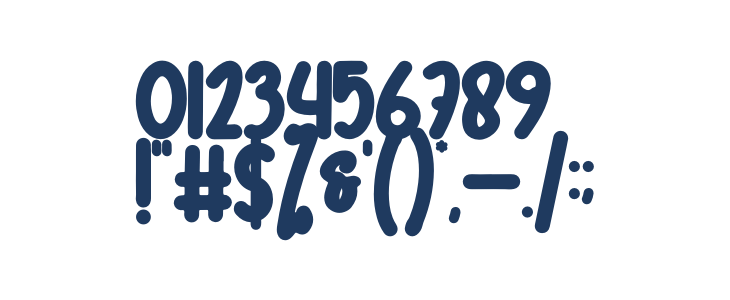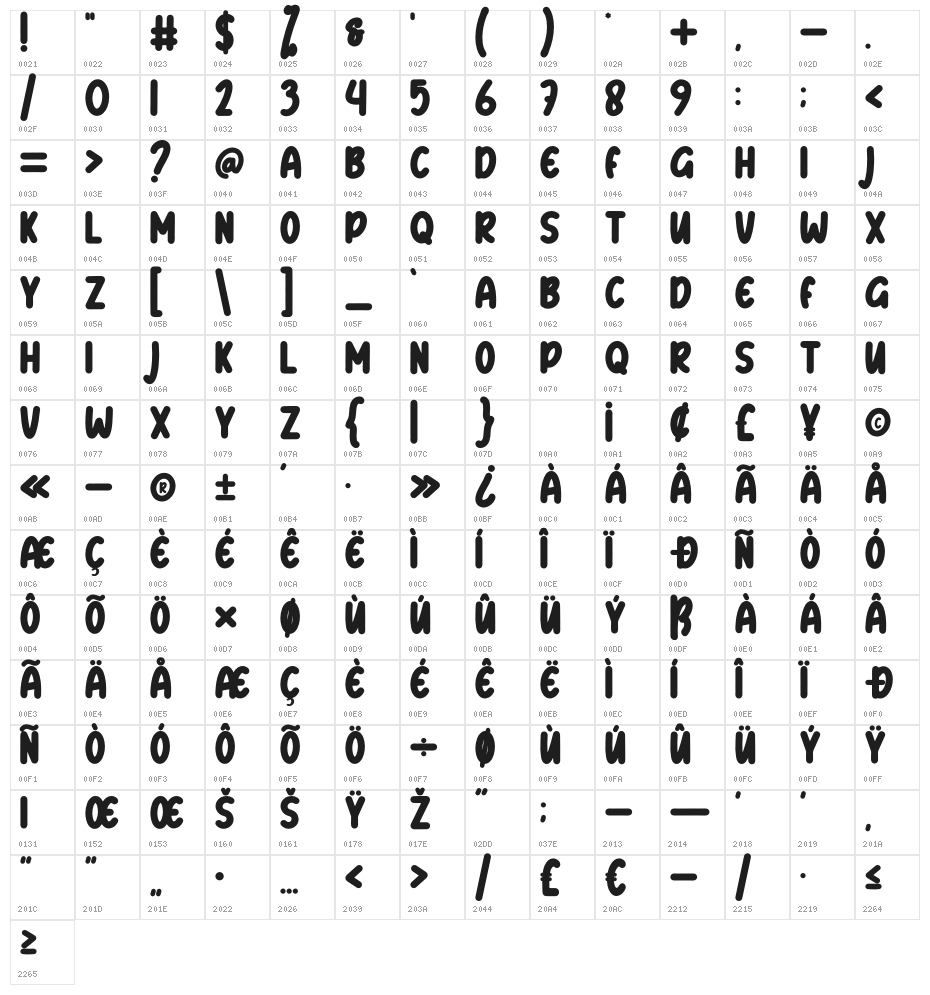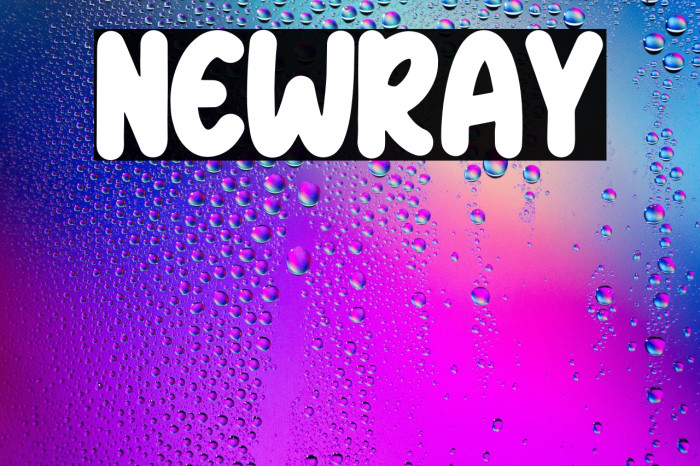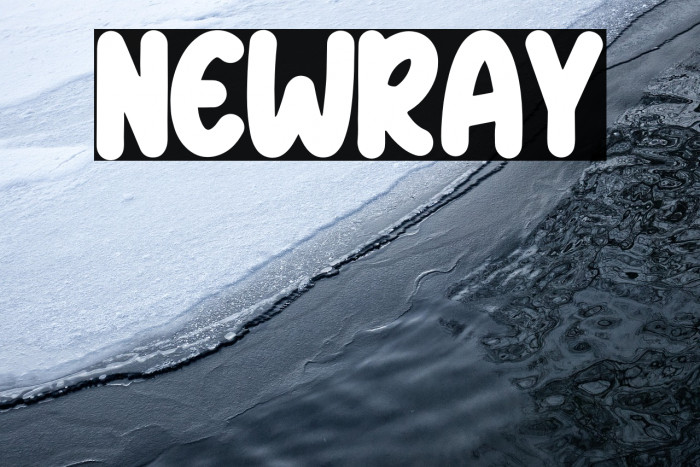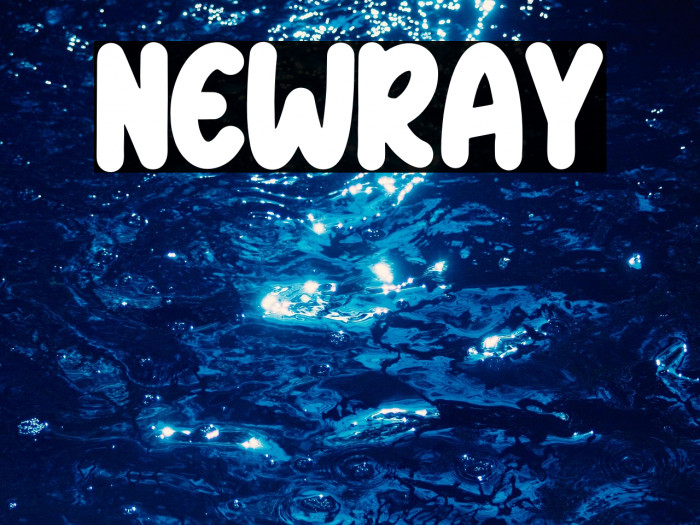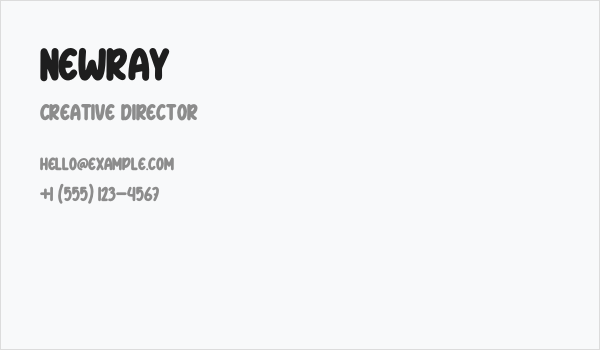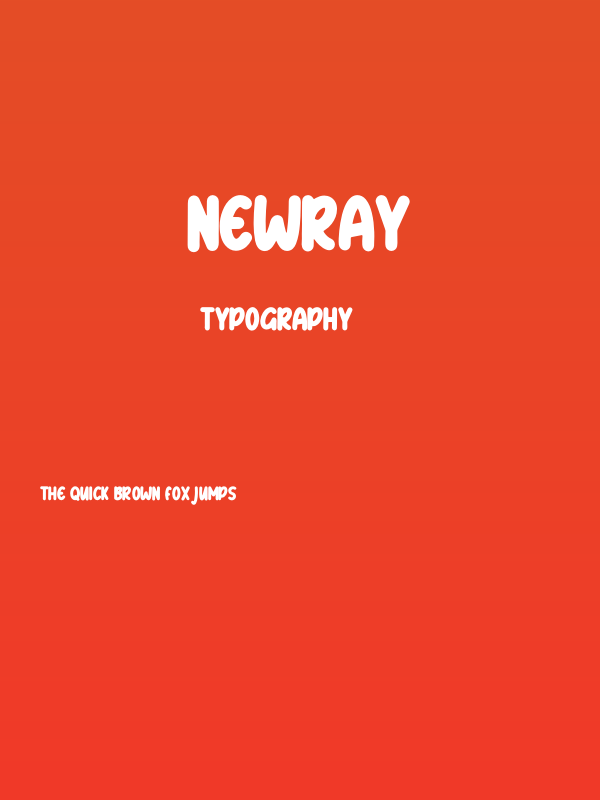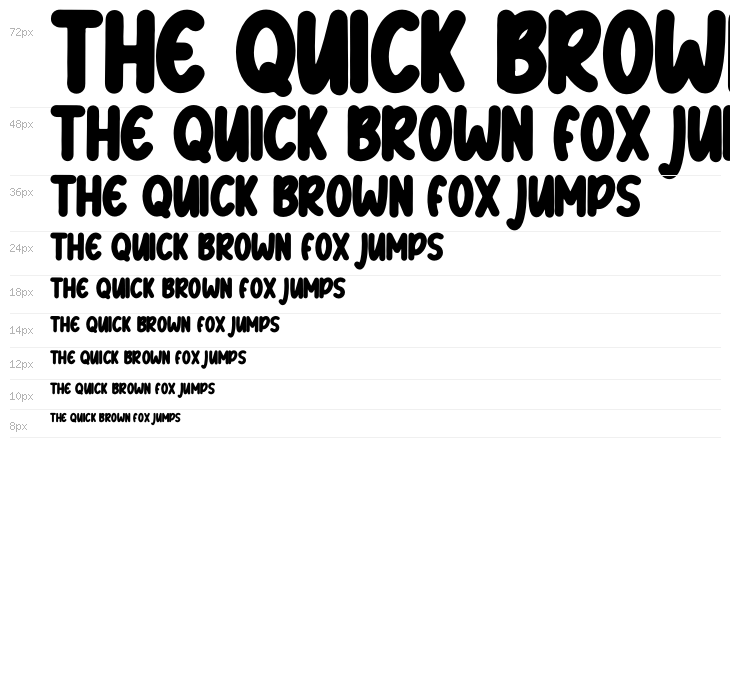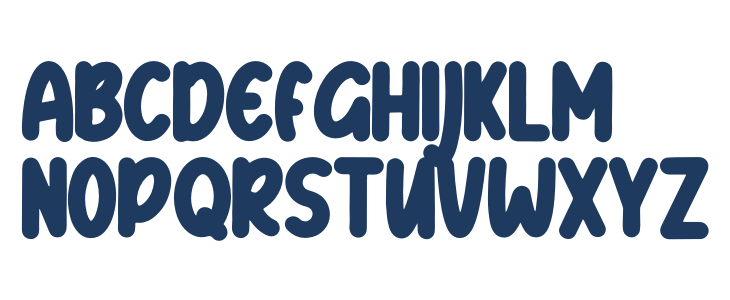
Newray Font
Newray Description
This font features bold, rounded characters with a playful and friendly appearance. The letters are thick and uniform, creating a strong visual impact. The rounded edges and consistent stroke width give it a soft, approachable feel, making it ideal for casual and fun designs. The numbers and special characters maintain the same bold and rounded style, ensuring a cohesive look across all elements. The overall design is simple yet striking, suitable for a variety of creative projects.
| Overall Style | Playful, Casual |
| Proposed Projects | Ideal for children's books, playful branding, posters, and social media graphics. |